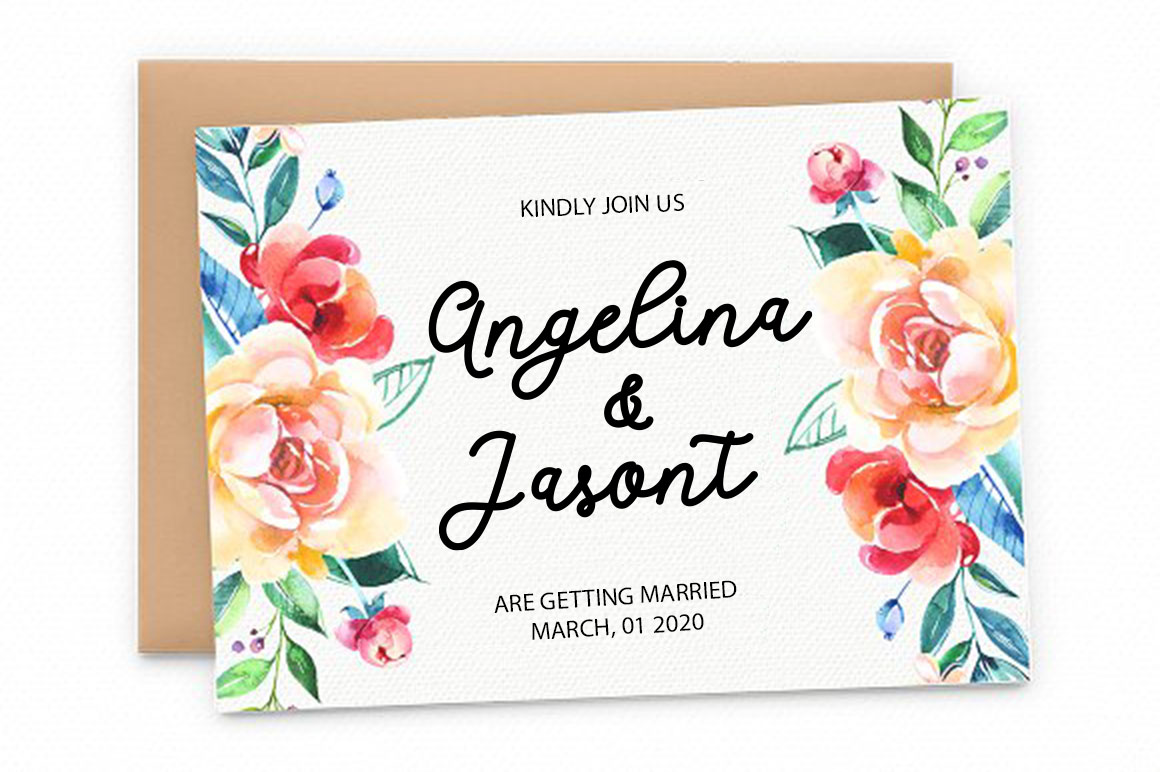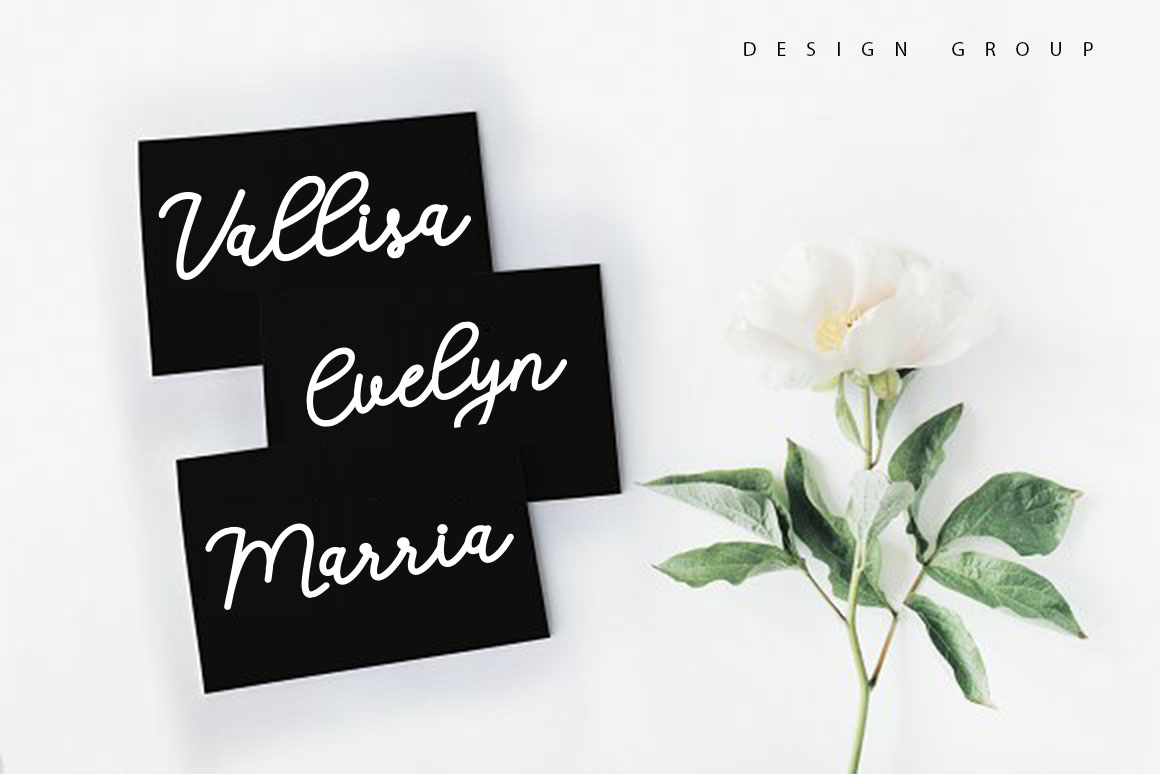
About Calega Font
Calega is a gorgeous, modern script font that is suitable for a ton of different project types. This friendly monoline font is ideal for invitationals and headlines and looks gorgeous in modern and vintage project styles. Add this lovely freebie to your creations and take your designs to the next level!